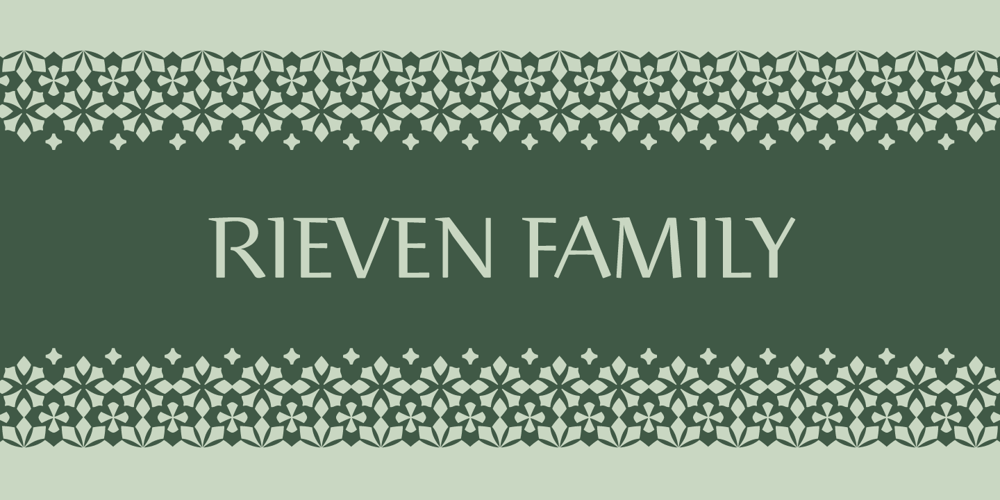
Rieven Font Family was designed by Steven Skaggs and published by Delve Fonts. Rieven contains 2 styles and family package options. Designer Steven Skaggs wanted a versatile uncial typeface that was not simply decorative. Traditionally, a true uncial is a majuscule form, entirely lacking in ascenders and descenders. However, by designing Rieven Uncial, Skaggs found a way to use the true uncial as inspiration but retained a lowercase look and feel.Typically, uncials do not have italic forms but in order for Rieven to be a truly versatile face, it was imperative that it should be accompanied by an italic. The italic form owes much to the historical roots in the letra antigua cursiva of the 15th century humanist masters. Rieven Uncial was awarded a Certificate of Excellence in Type Design in the 2010 TDC2.